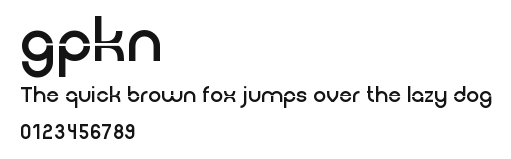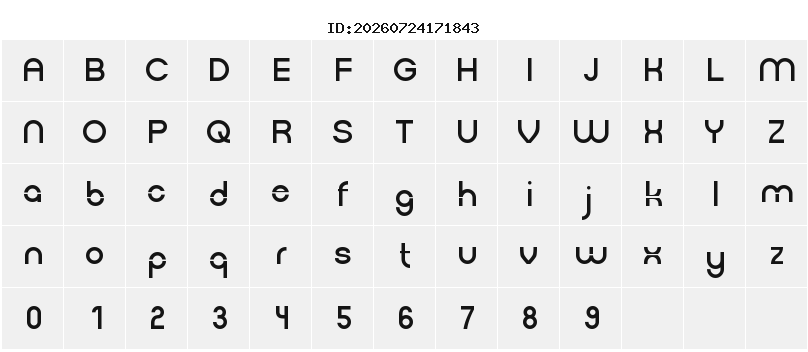
• Font Name: gpkn
• Designer: Situjuh Nazara
About gpkn.ttf
gpkn.ttf is a modern, elegant sans-serif font designed for ultimate readability and visual harmony. Perfect for branding, headlines, web design, and print materials.